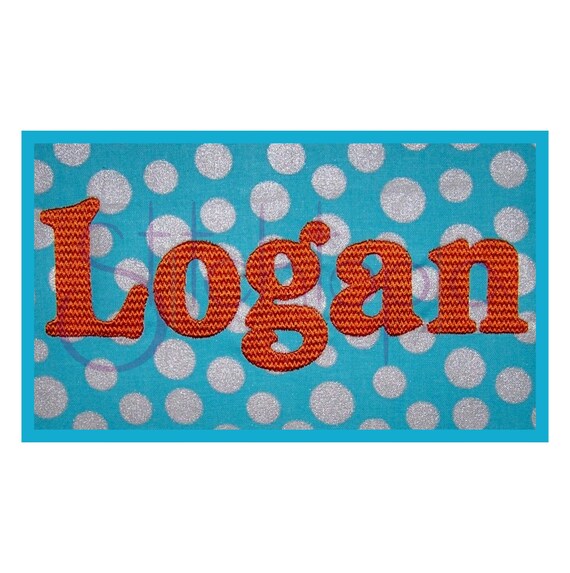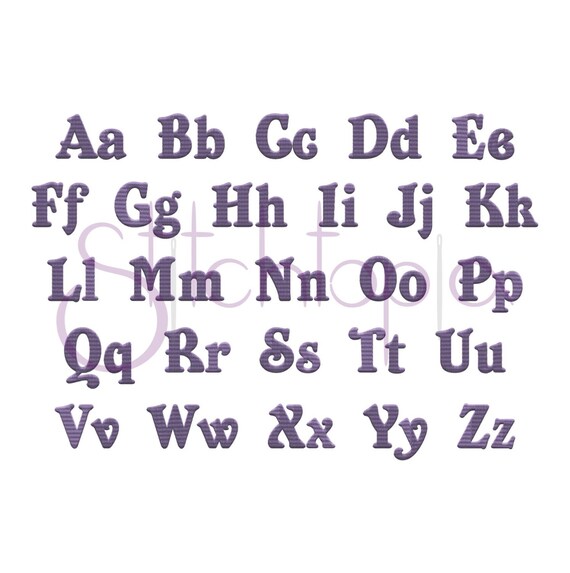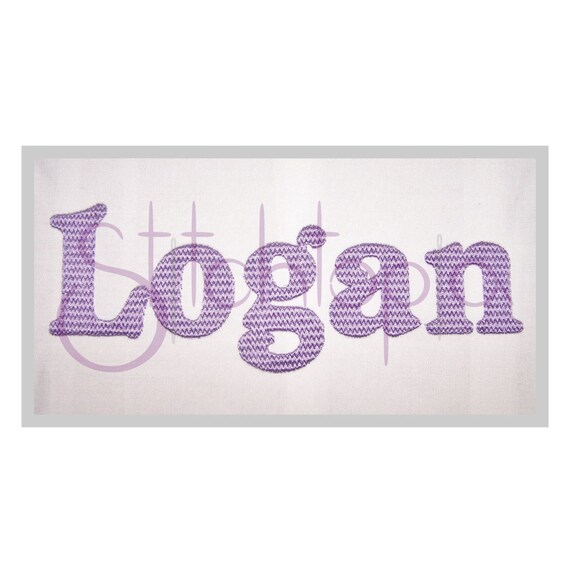
This is such a fun set for kids names! Perfect for towels, blankets and dense enough for any heavy fabrics! Each letter is a separate digital embroidery file that you use to build monograms, names, words or sayings!
1", 2", 3" Chevron Pattern Fill Stitch, Uppercase, Lowercase
All letters sized proportional to the capital A. Letter height may vary slightly for this reason. Letters were designed to work together like the original design of the font by the artist.